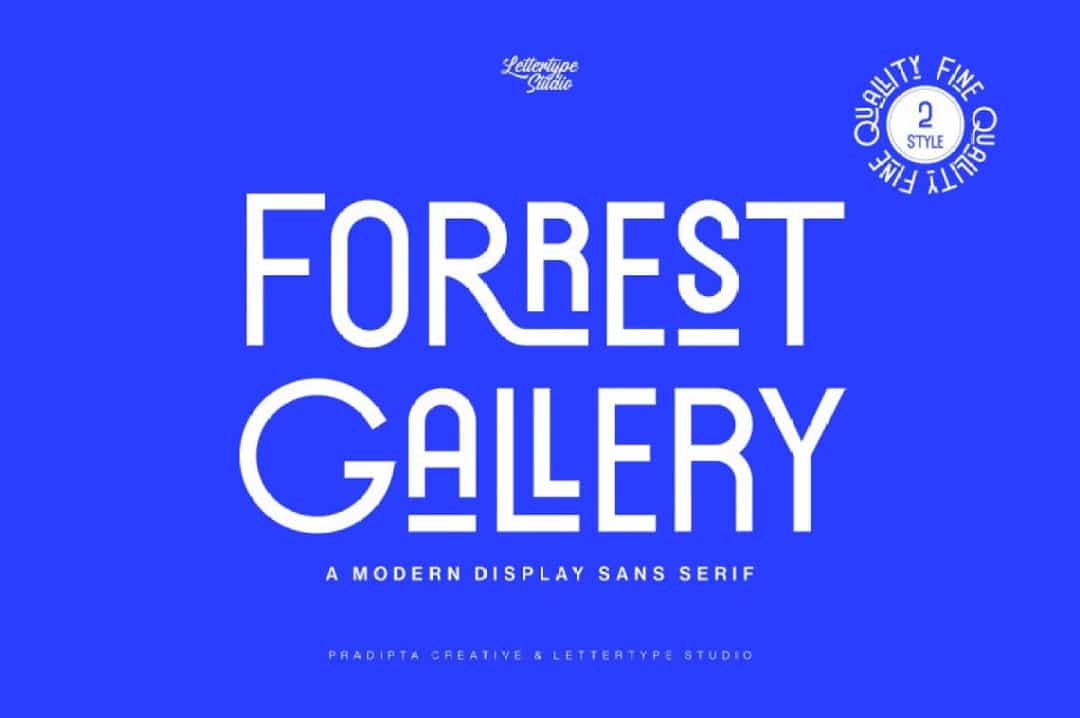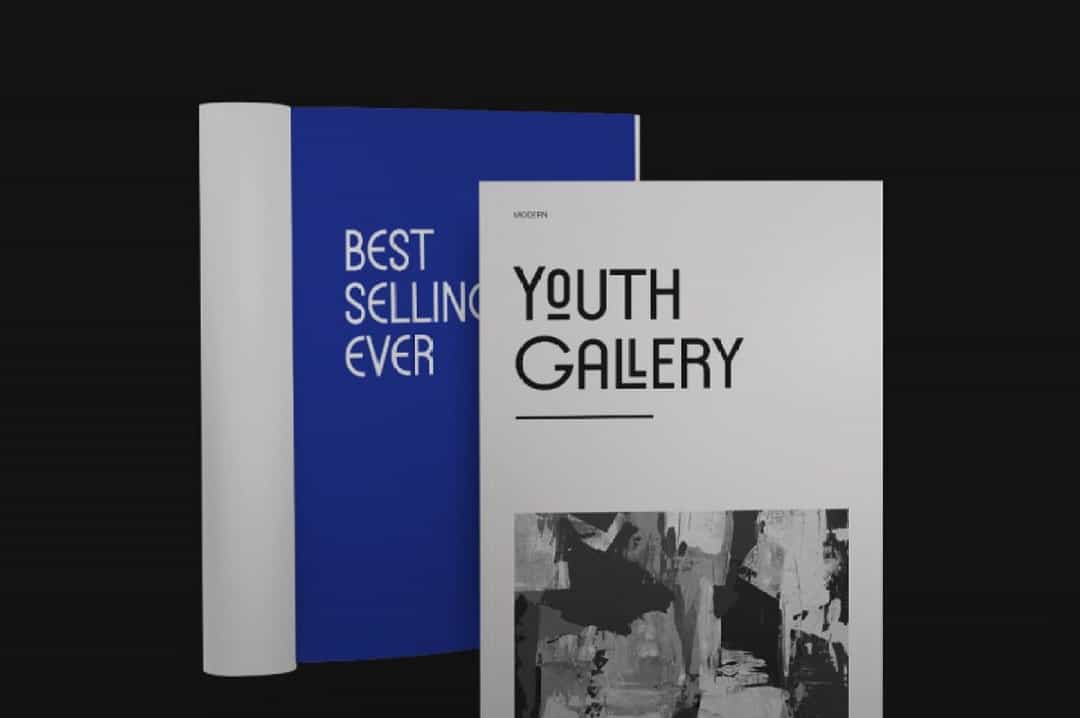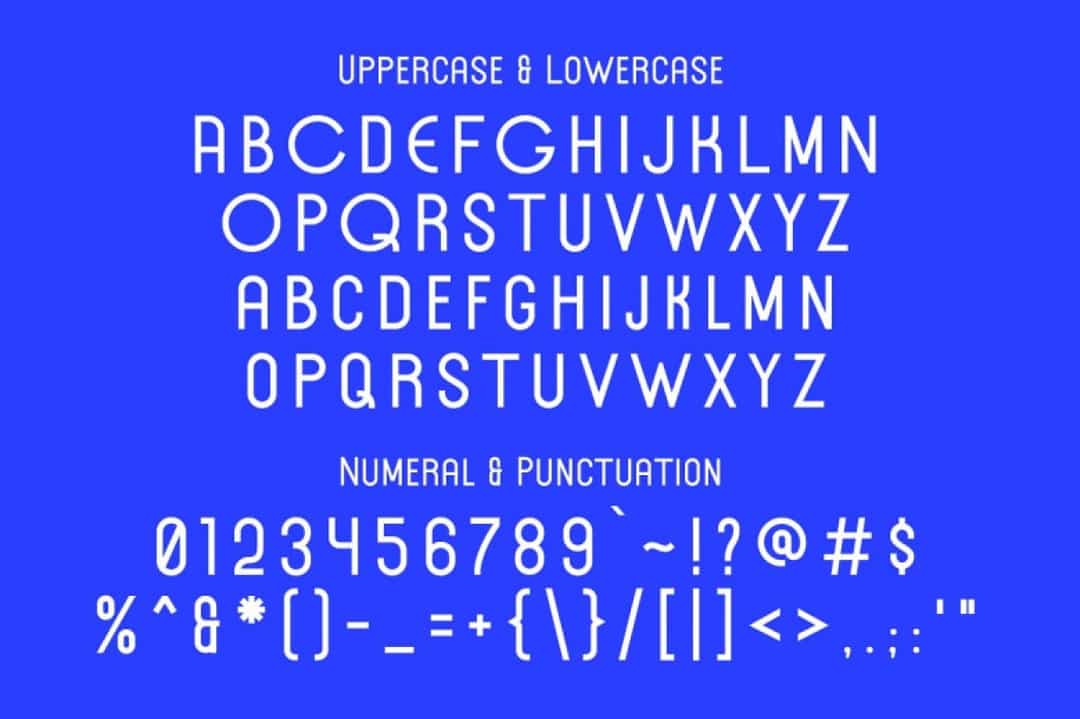
Discover Forrest Gallery Font, part of the Sans Serif Display collection—a versatile and unique font perfect for adding a personal touch to your projects. Download it for free and enjoy crafting designs with style, from invitations to social media posts. This font is available exclusively for personal use, giving you the freedom to create without limits. Unlock your creativity with Forrest Gallery Font today!
Welcome our modern show sans serif font: Forrest Gallery! With two styles (regular and italic), featuring high quality font glyphs that total 279 in each font style, Forrest Gallery makes an excellent choice for branding, logo design posters clothing signage magazines brochures type design typography typesetting typography etc! This font makes an excellent addition to any modern graphic designer’s repertoire!